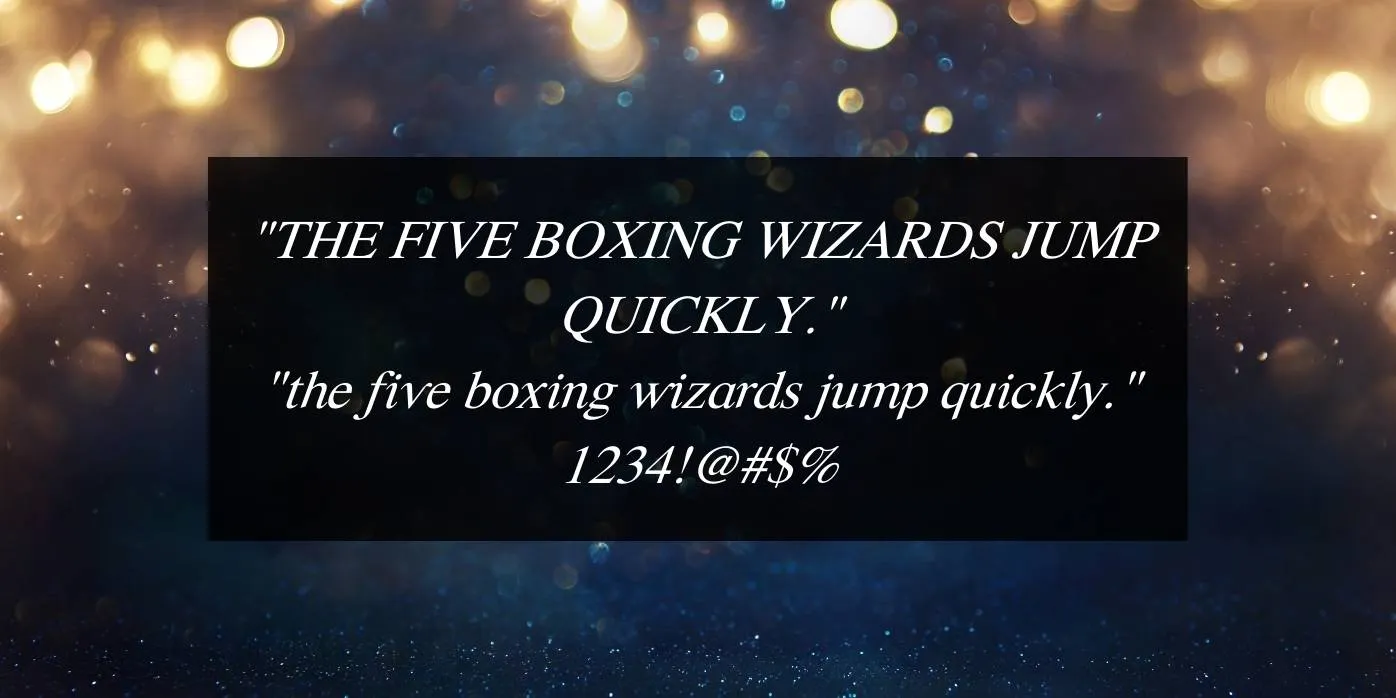
Happy Time Font
In this article, we are consulting on the Happy Time Font which belongs to the serif typeface. This typeface was developed by Kinetic Plasma Fonts and released on September 8, 2010. This texture is specified for the CSS and HTML. The Happy Time Typeface is a great choice for those who are looking for a contemporary and stylish serif typeface.
The beautiful curves of the letters give the font a unique and classy look that is perfect for any design project. The copy-and-paste function of this typeface is effective for different designs. Another similar font which is boowie font is perfect for different designs. If you are looking for a classic Happy Time Typeface, then you have come to the right place.